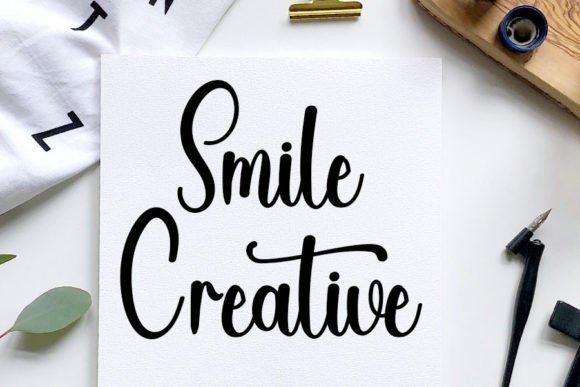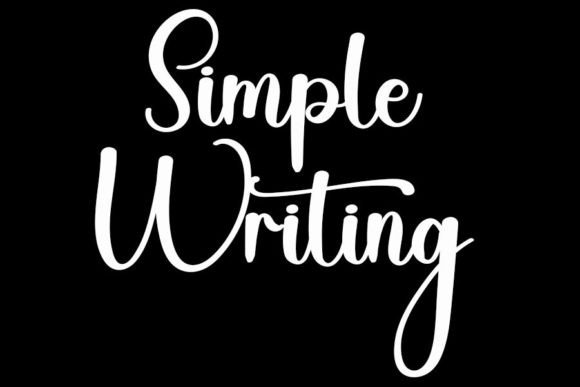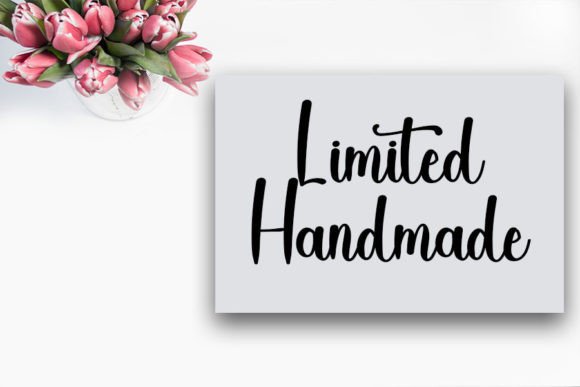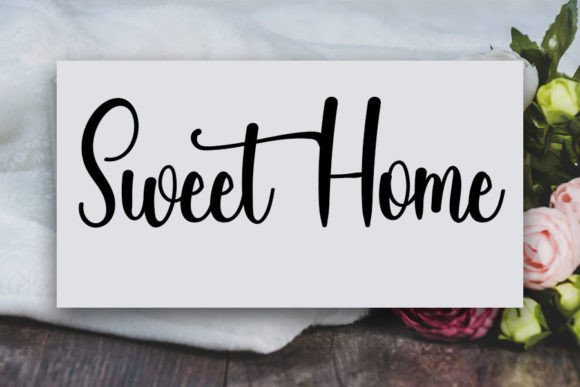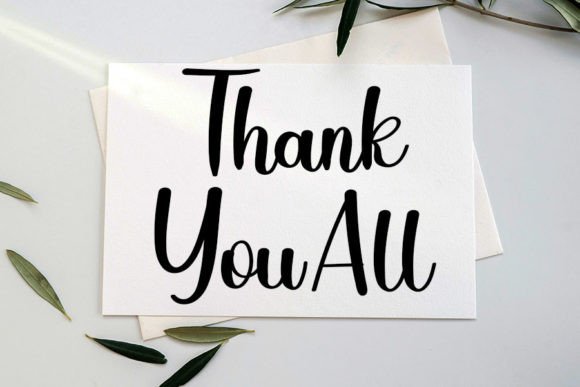
Discover the Charm of Black Pastel Font: Elevate Your Designs with a Friendly Handwritten Style
Are you on the hunt for a font that adds a touch of warmth and personality to your creative projects? Look no further than the Black Pastel Font. This delightful, handwritten font is carefully crafted to capture the hearts of designers and crafters alike, making it an excellent addition to your font library.
The Essence of Black Pastel Font
Black Pastel is a friendly handwritten font that exudes a sense of approachability and charm. Its unique character is designed to make your creative projects come alive, adding a personal touch that sets them apart from the rest. Whether you’re working on a branding project, crafting a social media post, or designing a greeting card, Black Pastel Font is the perfect companion to help you convey your message with style and warmth.
What Makes Black Pastel Font Stand Out?
- Handwritten with Love: Black Pastel Font is meticulously designed to mimic the imperfections and uniqueness of handwritten text. Each letter is crafted with care, ensuring that your designs have a personal and relatable feel.
- Versatility at Its Best: This font is incredibly versatile, making it suitable for a wide range of projects. From digital content to print materials, Black Pastel Font adapts seamlessly, ensuring your designs look great across various platforms.
- Ease of Use: Black Pastel Font is easy to read and use, making it accessible for designers of all skill levels. Whether you’re a seasoned professional or just starting out, this font will quickly become a favorite in your collection.
- Unique Personality: The font’s distinctive style adds a unique personality to your designs, helping you to stand out in a crowded creative landscape. With Black Pastel Font, you can infuse your projects with a sense of warmth and friendliness that resonates with your audience.
How to Use Black Pastel Font in Your Projects
Incorporating Black Pastel Font into your workflow is straightforward. Here are a few ideas to get you started:
- Branding and Logos: Use Black Pastel Font to create custom logos, business cards, or letterheads that reflect your brand’s personality.
- Social Media Graphics: Add a personal touch to your social media posts, stories, and banners with this charming font.
- Stationery and Invitations: Design beautiful greeting cards, invitations, and thank-you notes that showcase your creativity.
- Digital Content: Enhance your blog posts, ebooks, and digital guides with a friendly and approachable font.
Tips for Getting the Most Out of Black Pastel Font
To maximize the impact of Black Pastel Font, consider the following tips:
- Pair with Complementary Fonts: Combine Black Pastel Font with clean, sans-serif fonts to create visual interest and hierarchy in your designs.
- Experiment with Colors: Play around with different color palettes to find the perfect match for your project. Soft pastels, rich blacks, and creamy whites work particularly well with this font.
- Pay Attention to Spacing: Adjust the spacing between letters and lines to ensure your text is easy to read and visually appealing.
Black Pastel Font is more than just a font – it’s a design companion that brings a touch of warmth and personality to your creative projects. With its friendly handwritten style, versatility, and ease of use, it’s an excellent addition to any designer’s font library. Whether you’re a seasoned professional or just starting out, Black Pastel Font is sure to become a true favorite. So why wait? Discover the charm of Black Pastel Font today and elevate your designs to new heights!